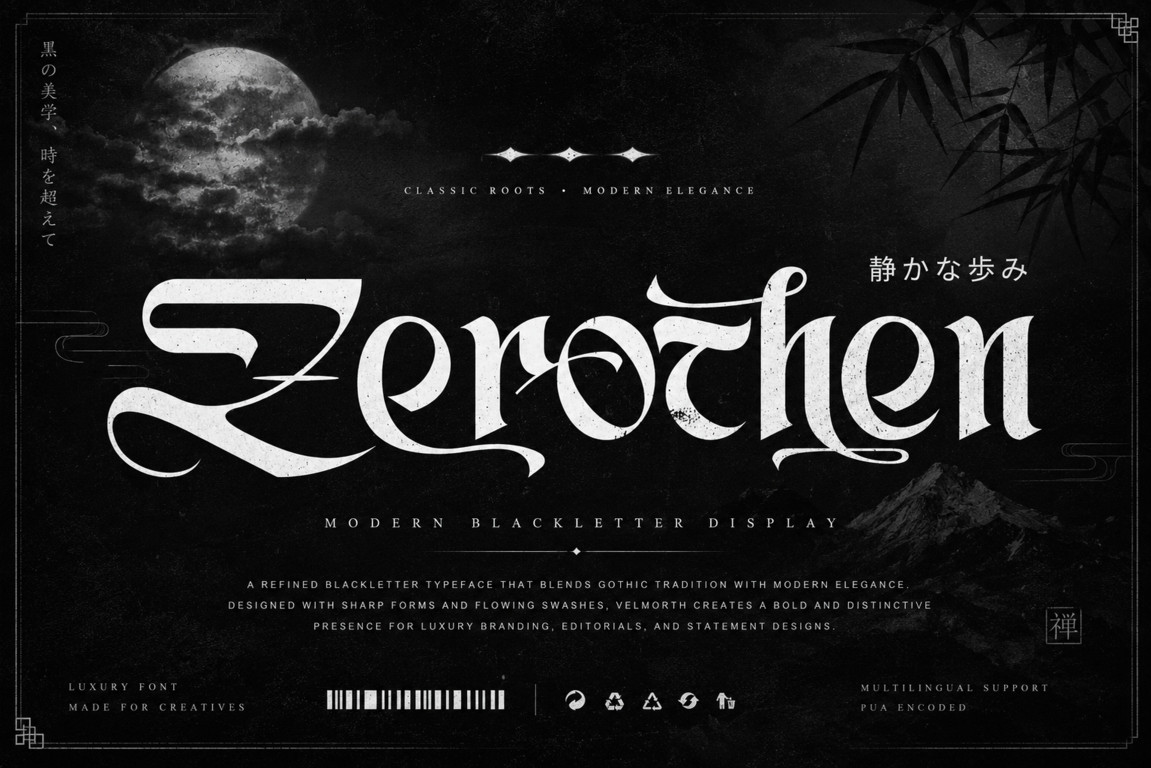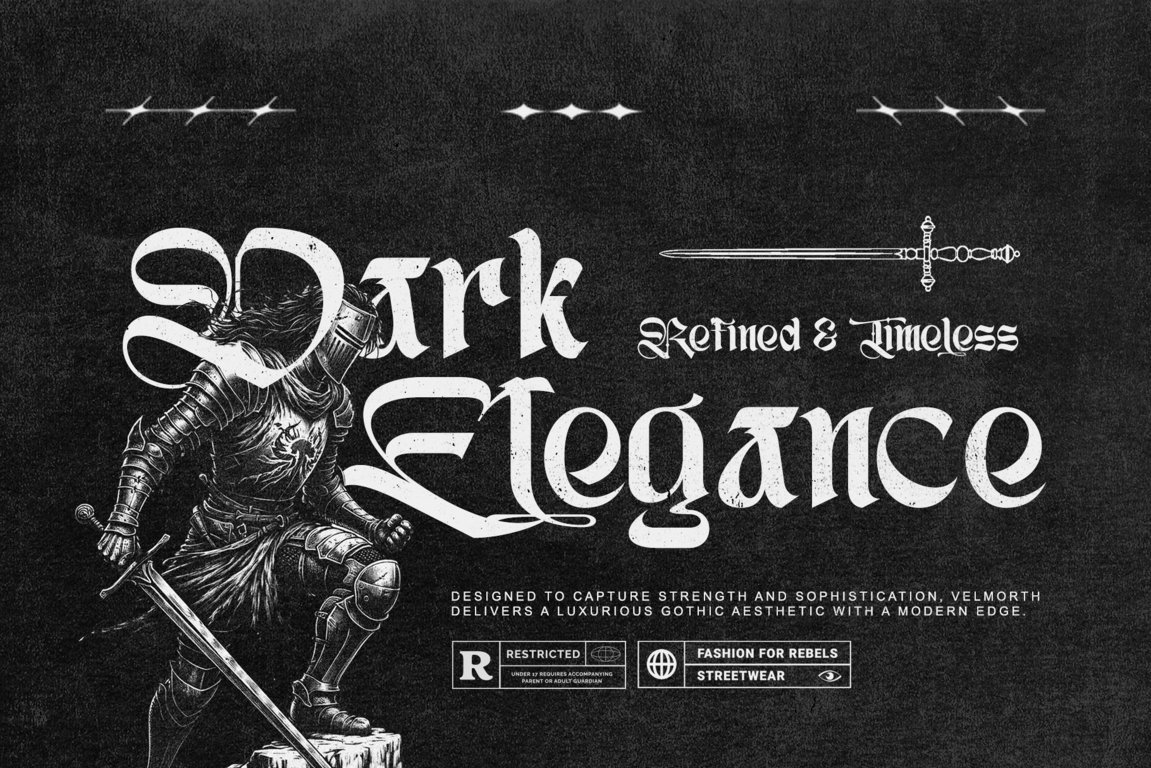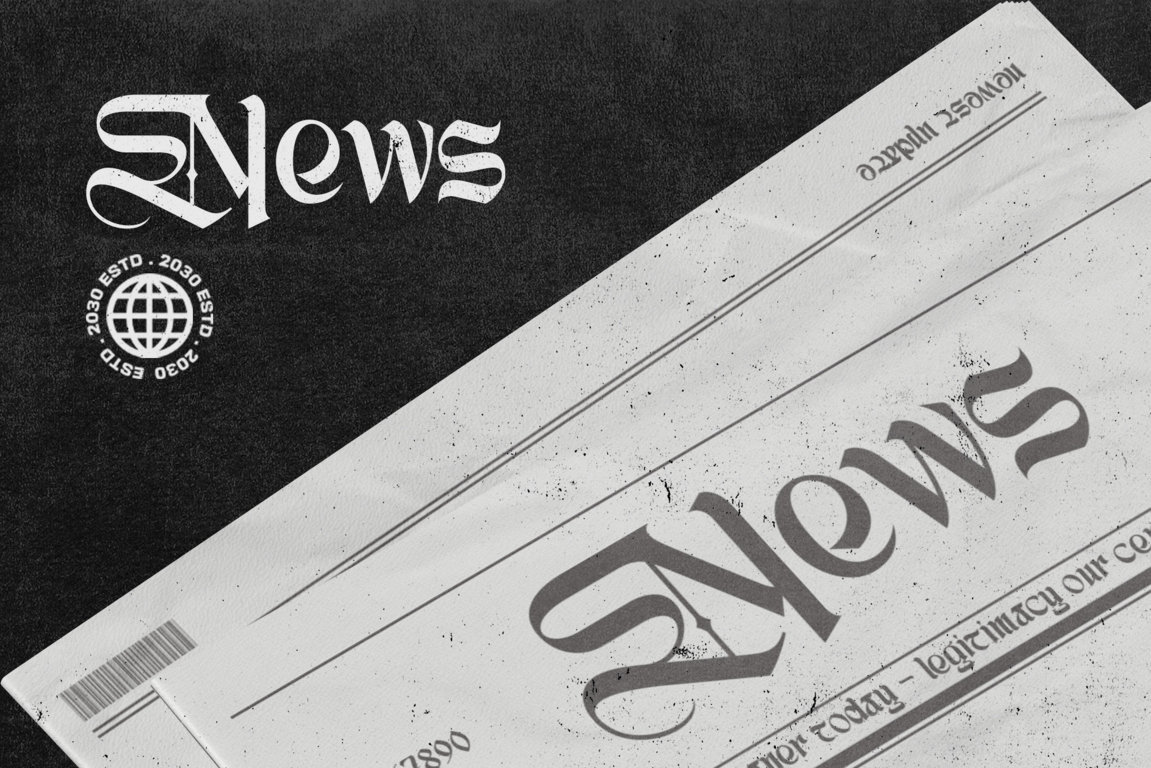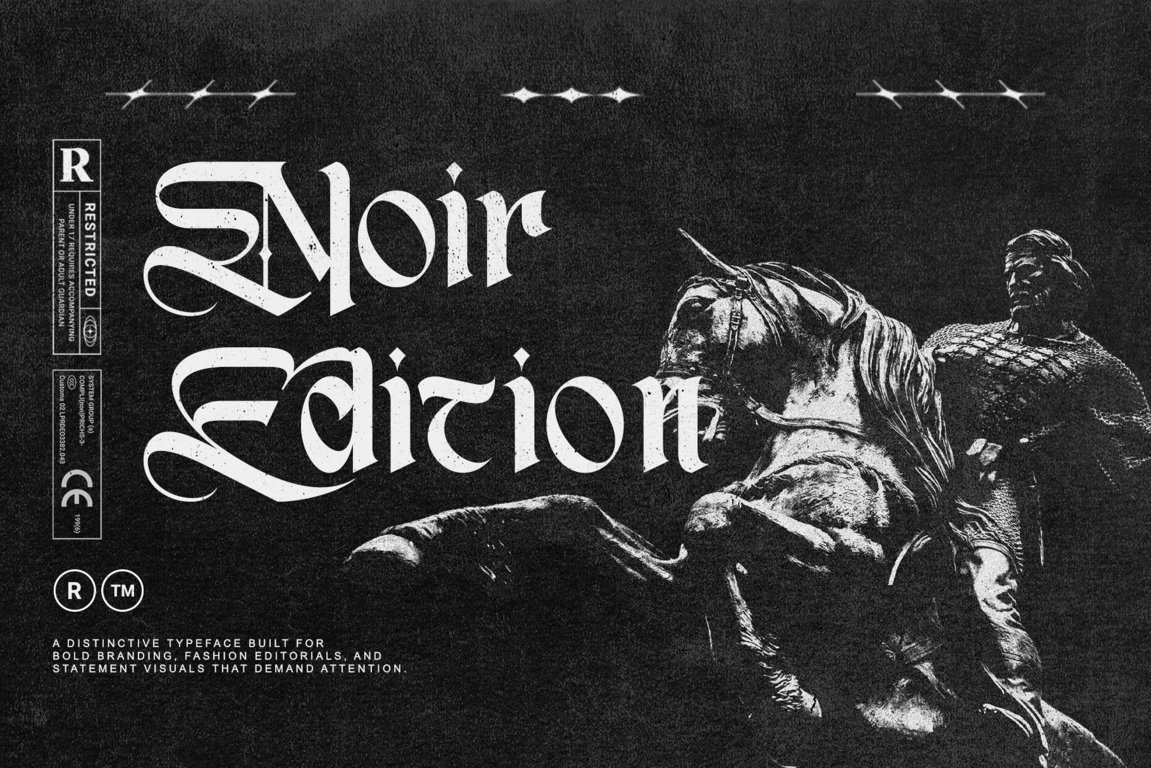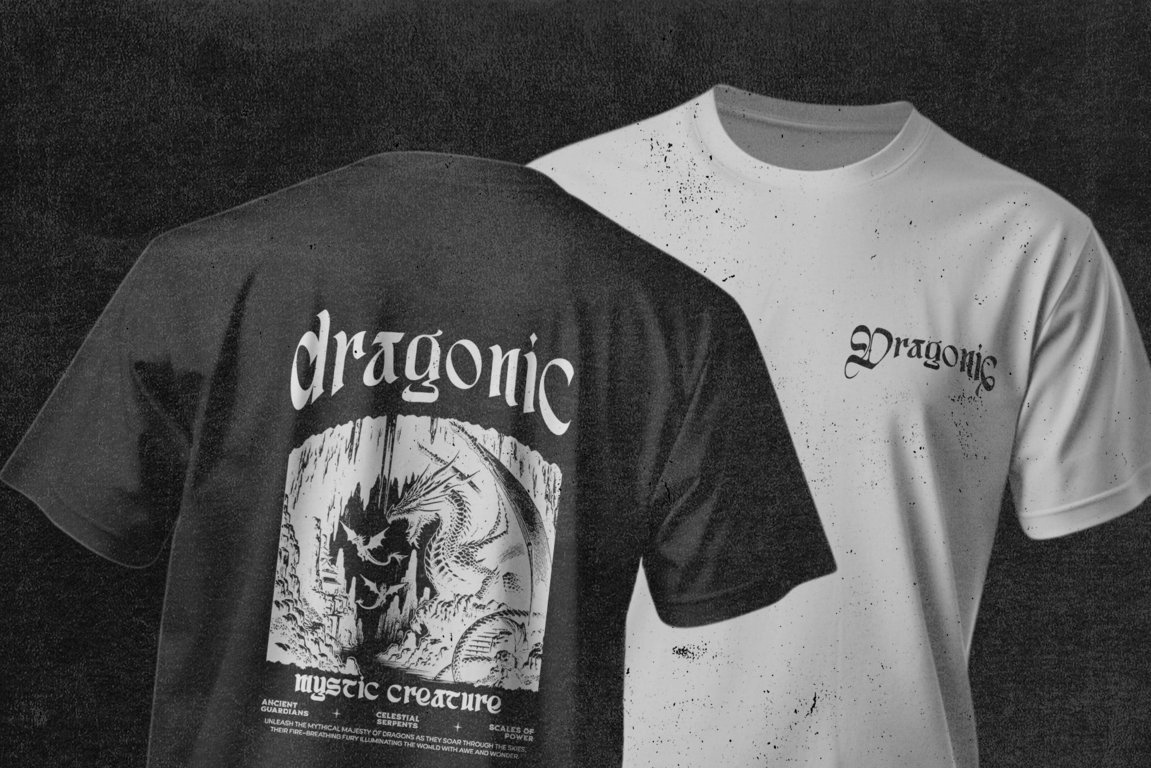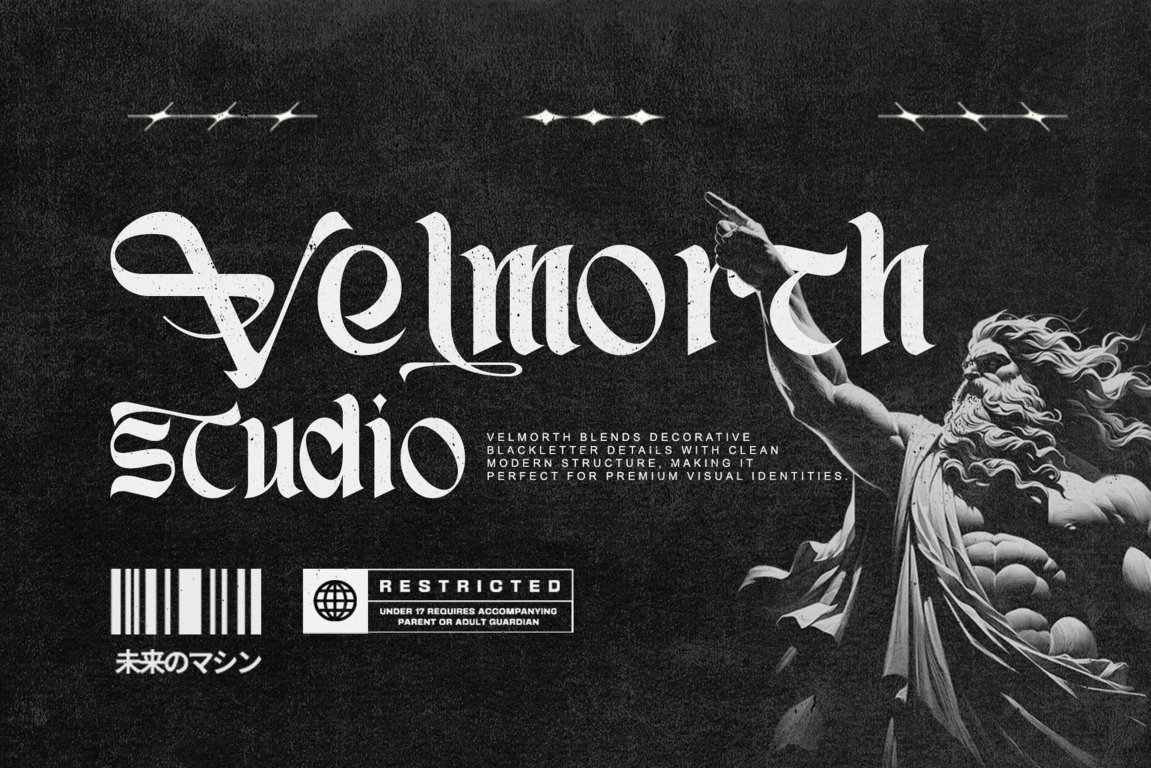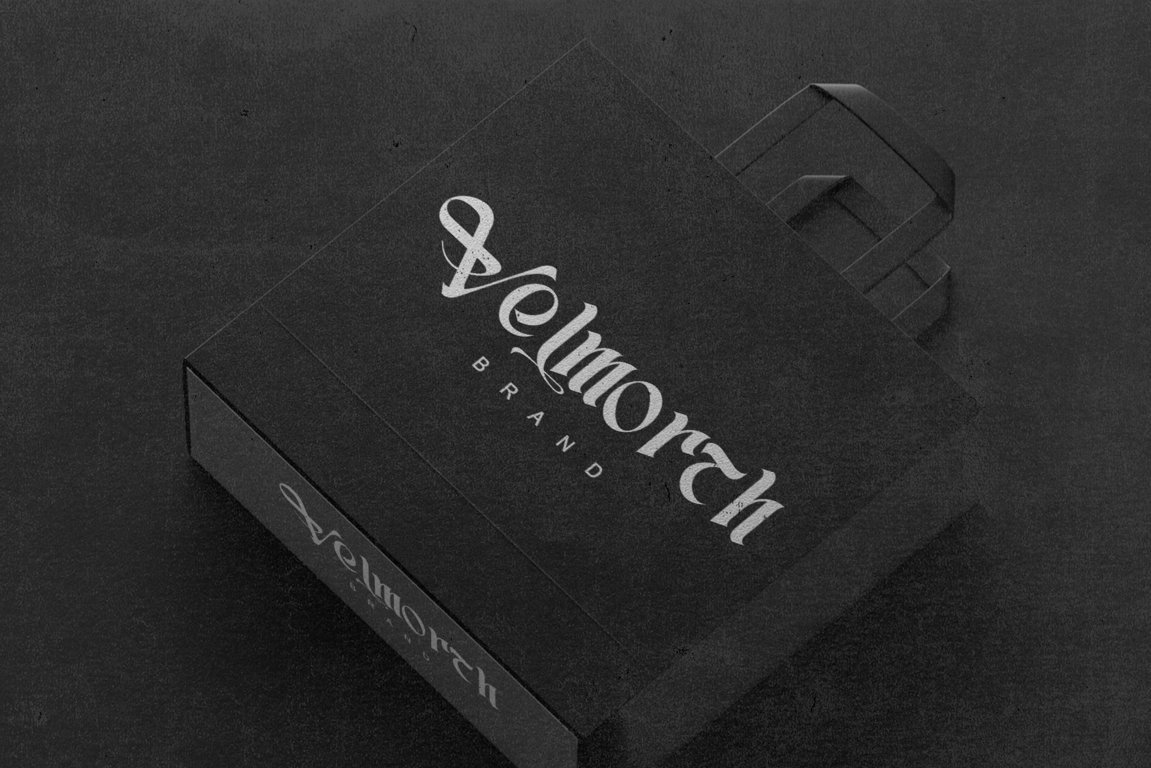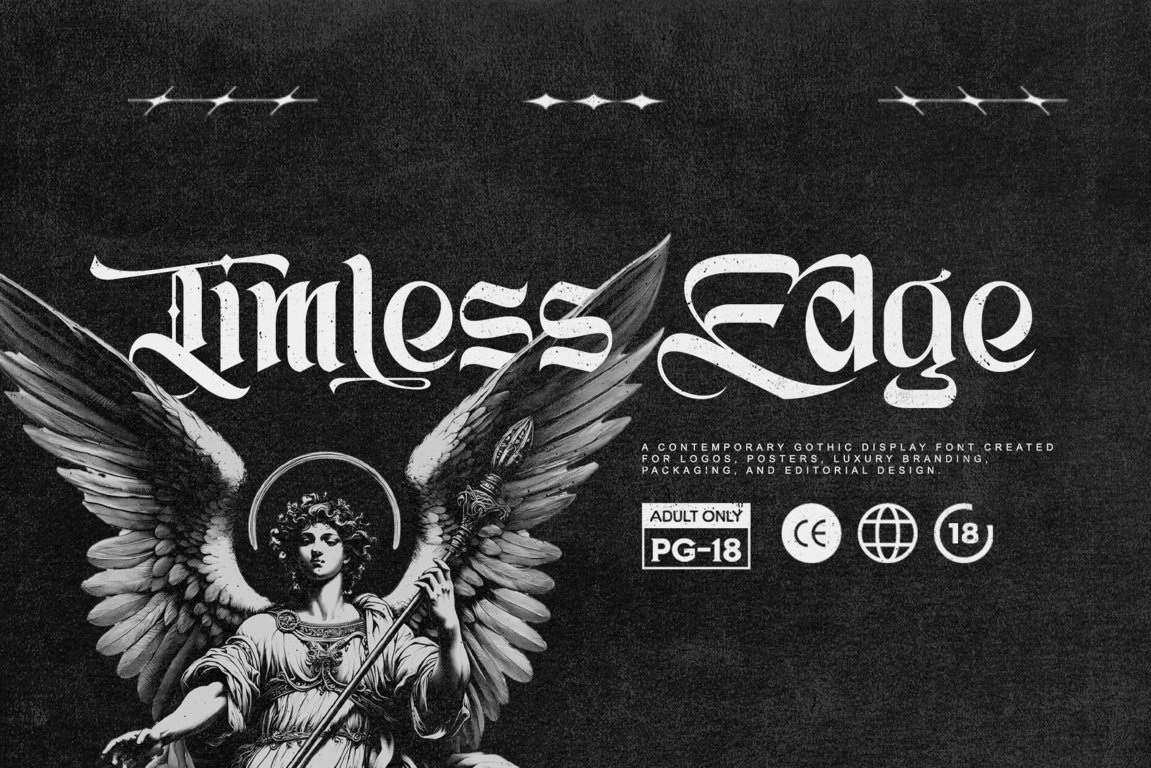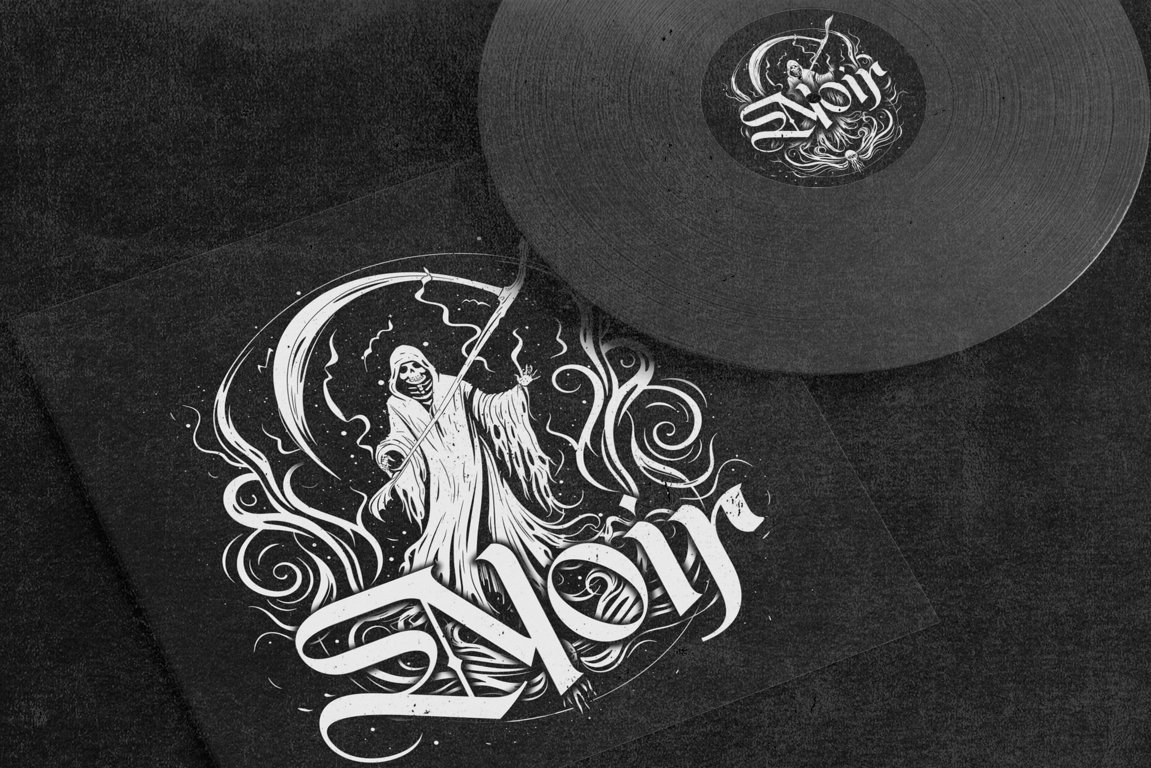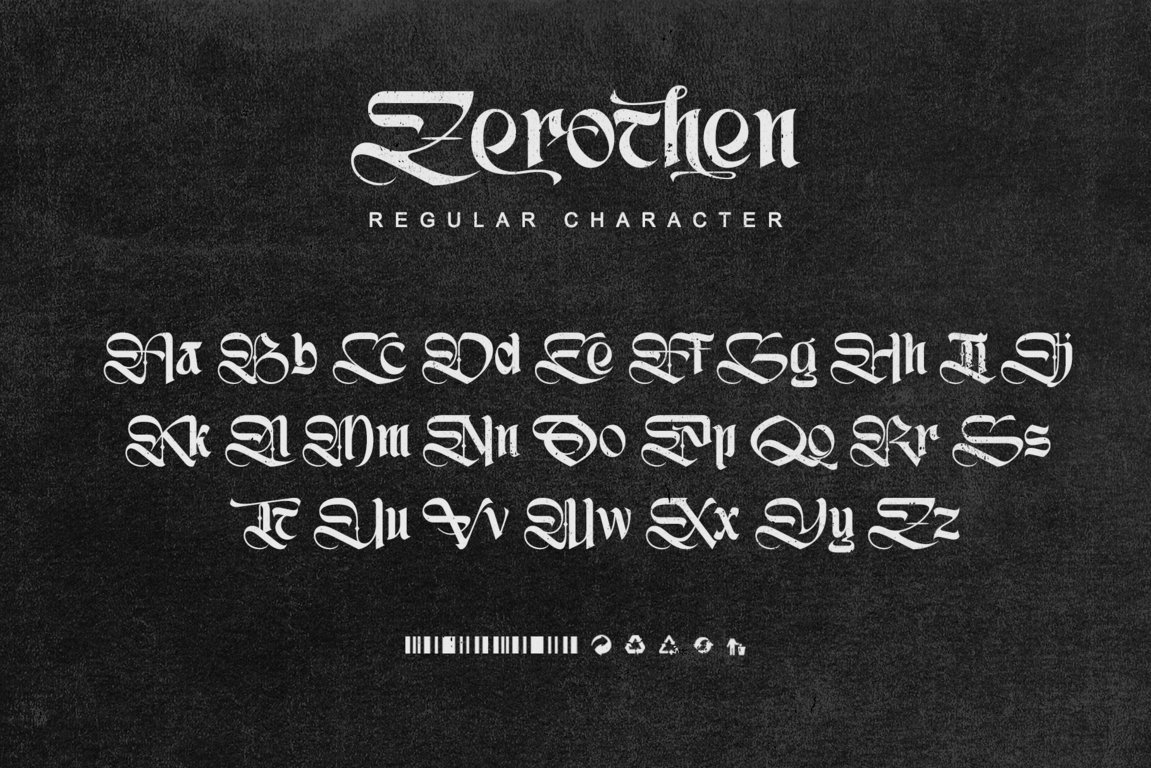
Zerothen is a modern blackletter display font that combines the dramatic character of traditional Gothic typography with refined curves, flowing swashes, and contemporary elegance.
Designed to create a bold and unforgettable visual presence, Zerothen features sharp letterforms, expressive terminals, decorative details, and beautifully crafted stylistic variations. Its distinctive appearance makes it ideal for designers who want to create typography that feels mysterious, artistic, powerful, and sophisticated.
Zerothen works beautifully for luxury logos, fashion branding, streetwear, tattoo designs, album covers, music posters, movie titles, editorial layouts, book covers, product packaging, merchandise, and dramatic social media graphics.
The font includes regular characters, decorative swashes, alternate letterforms, titling characters, creative ligatures, numerals, punctuation, symbols, accented characters, and multilingual support. These OpenType features give you greater freedom to build custom wordmarks, unique headlines, expressive logos, and highly detailed typographic compositions.
Whether you are developing a dark fashion identity, creating artwork for a music release, designing premium packaging, or building a powerful editorial title, Zerothen adds depth, personality, and timeless Gothic elegance to your project.
- Luxury and fashion logos
- Modern Gothic branding
- Blackletter wordmarks
- Streetwear and apparel designs
- Tattoo lettering
- Metal, rock, and alternative music artwork
- Album covers and promotional posters
- Movie and game titles
- Editorial and magazine headlines
- Book covers and fantasy publications
- Premium product packaging
- Beverage and fragrance labels
- Merchandise and printed apparel
- YouTube thumbnails and social media campaigns
- Dark, mysterious, and Japanese-inspired visual concepts
- Support multilingual; ä ö ü Ä Ö Ü ß ¿ ¡
- Numerals & Punctuation
- uppercase letters
- Alternate, swash, titling & Ligature
Create commanding logos, expressive headlines, dark editorial designs, and unforgettable visual identities with Zerothen.
Zerothen is a bold modern blackletter display font with elegant Gothic forms, decorative swashes, alternates, titling characters, ligatures, and multilingual support. Ideal for luxury logos, fashion branding, tattoos, streetwear, album covers, posters, packaging, and powerful editorial designs,
Zerothen is a modern decorative blackletter font designed for Gothic logos, fashion branding, streetwear, tattoo lettering, album artwork, editorial headlines, movie titles, posters, and premium packaging. The font includes regular characters, alternates, swashes, titling forms, ligatures, numerals, punctuation, symbols, and multilingual characters.